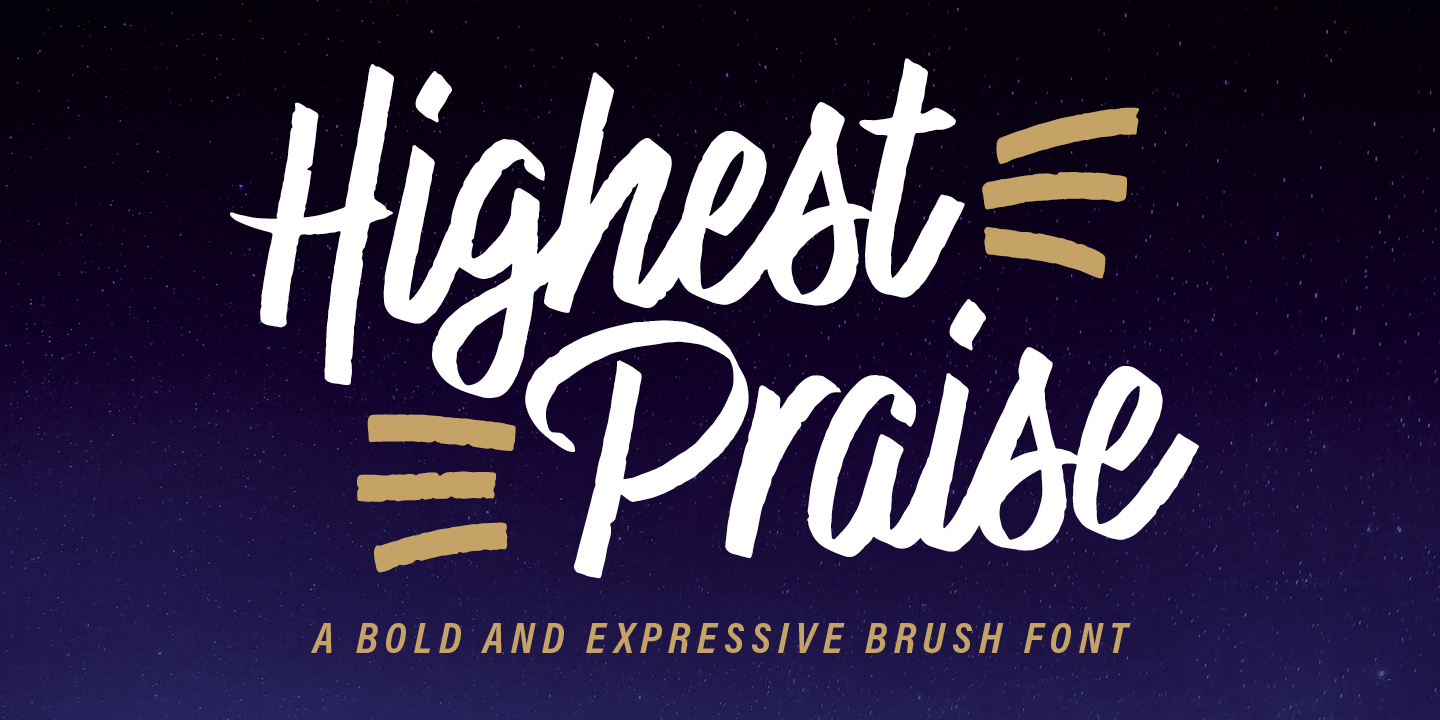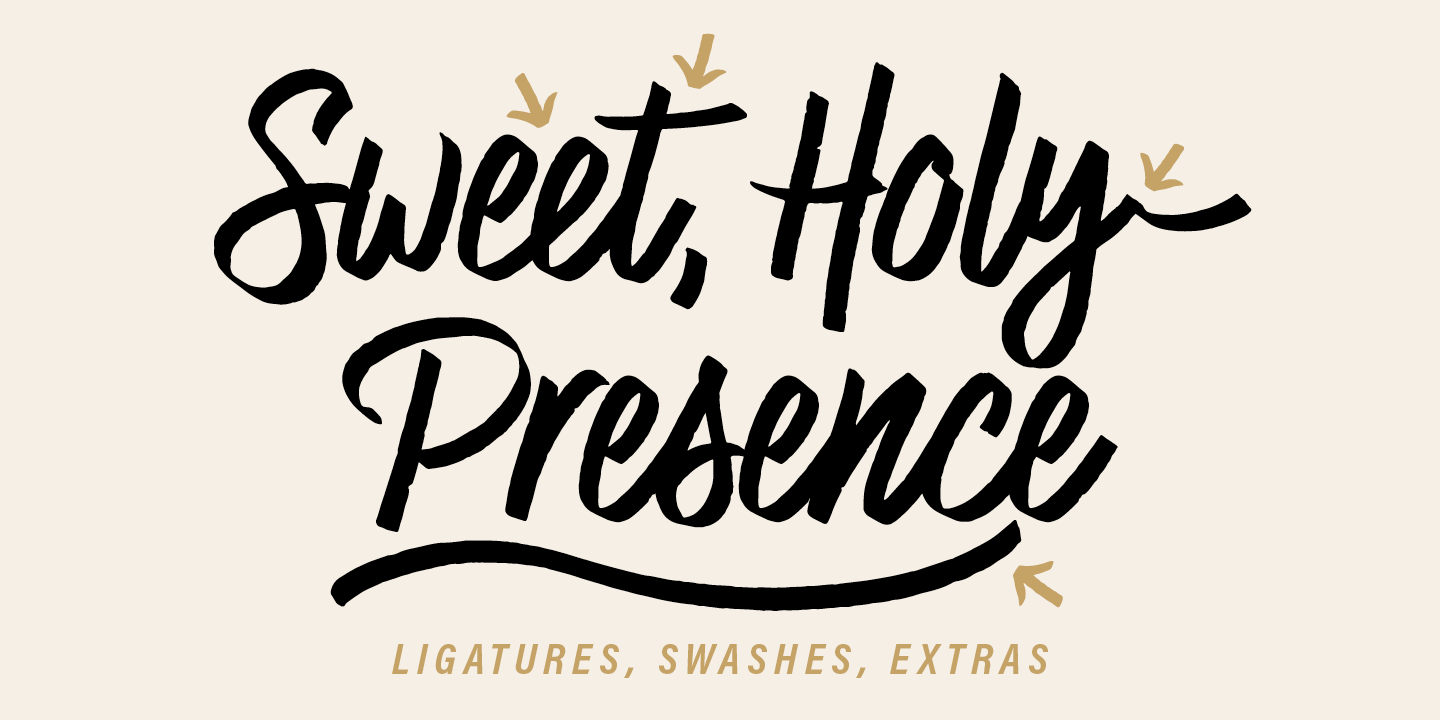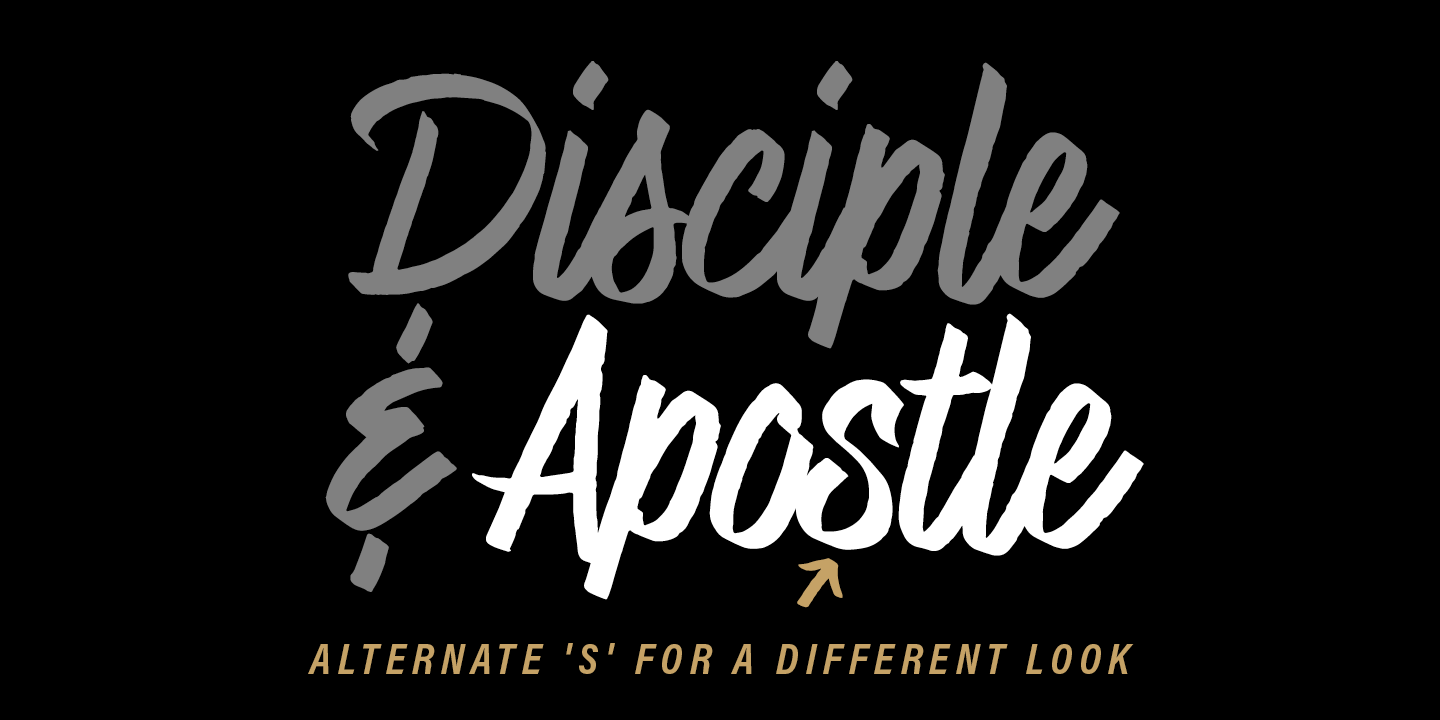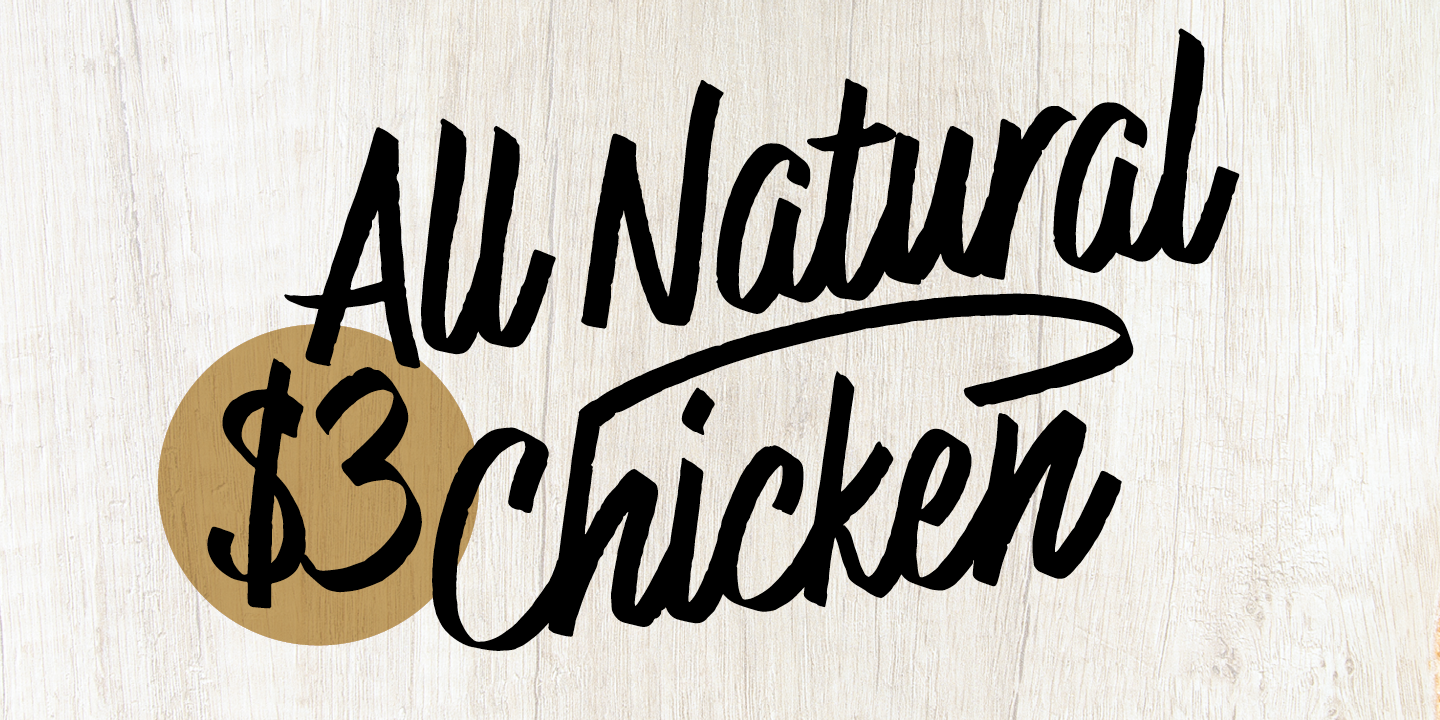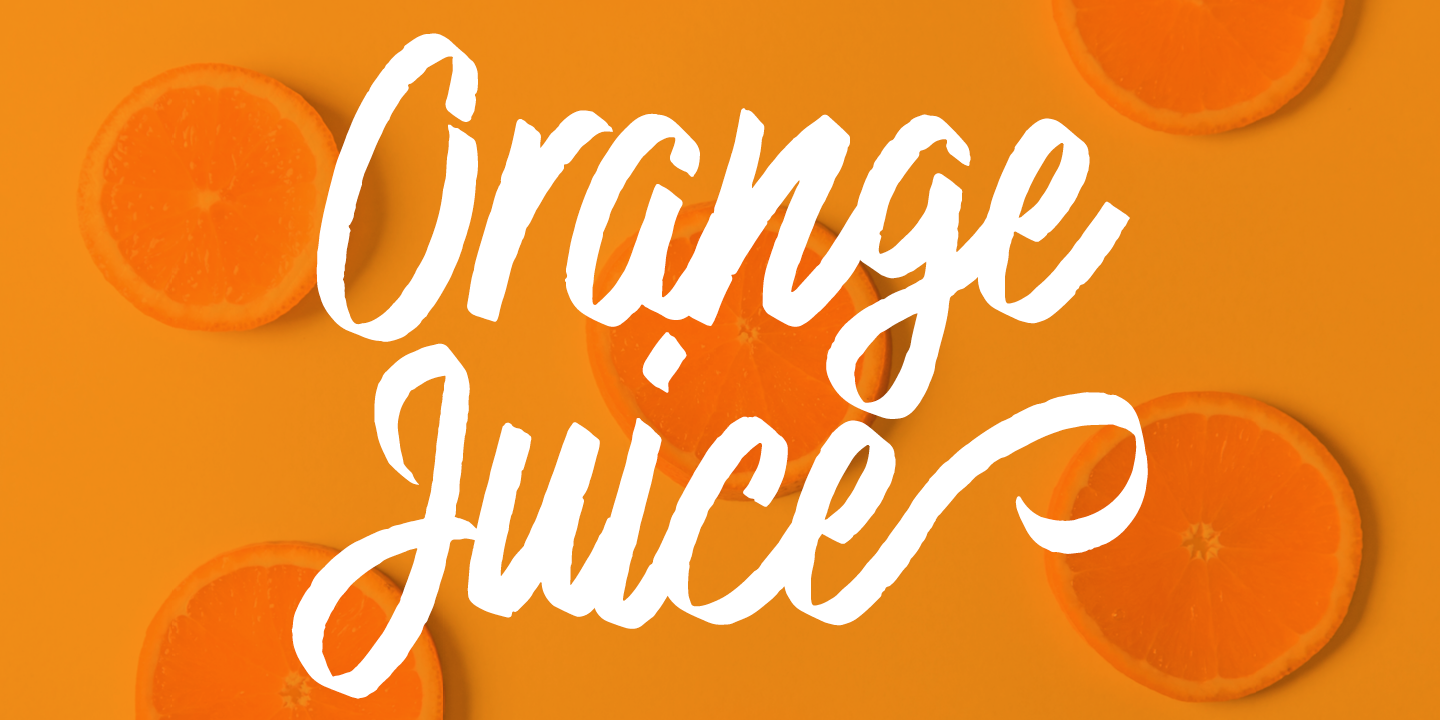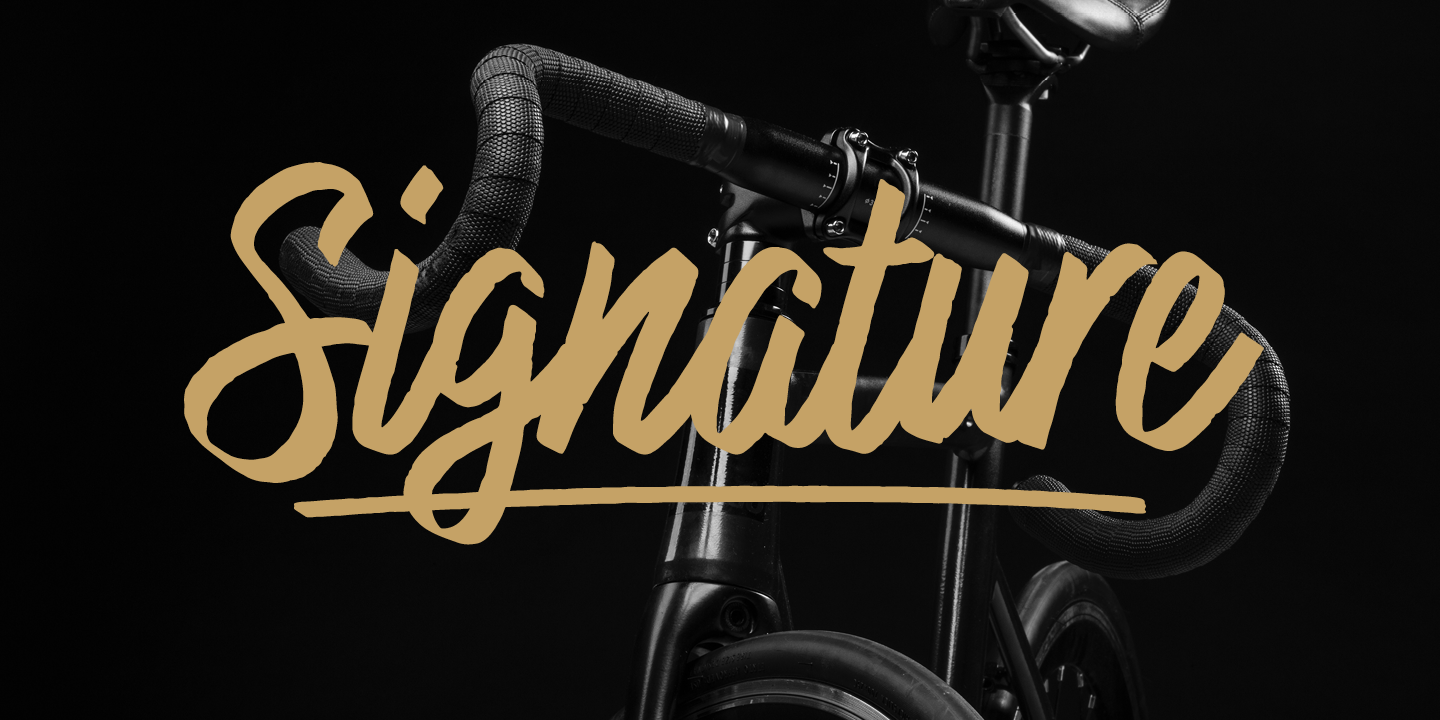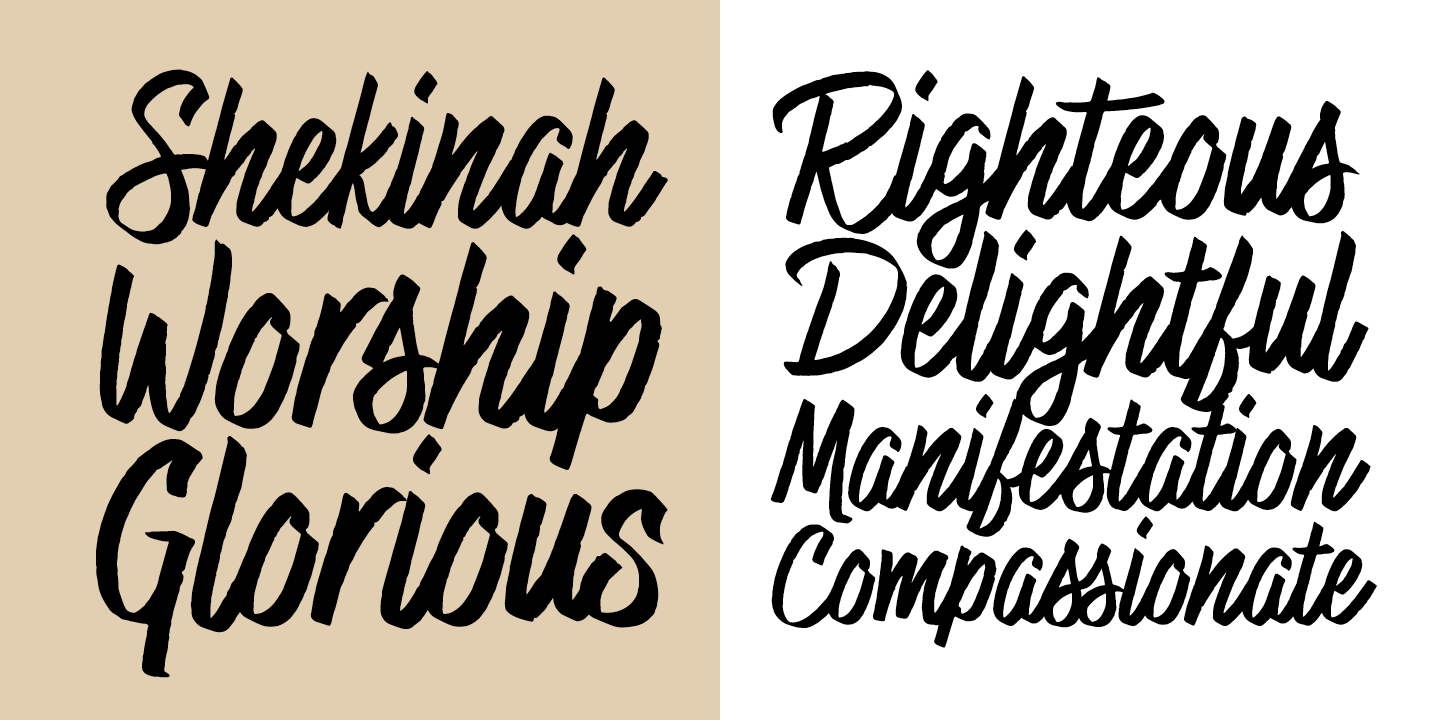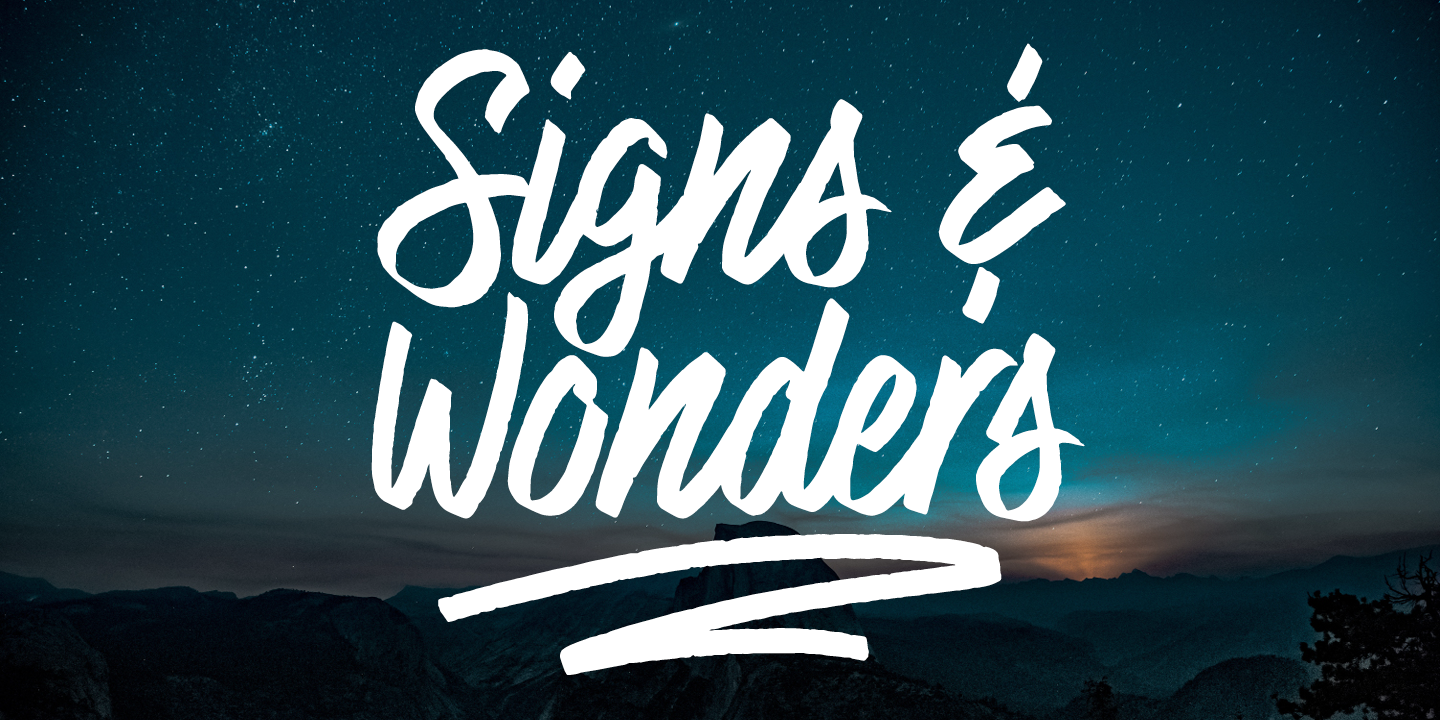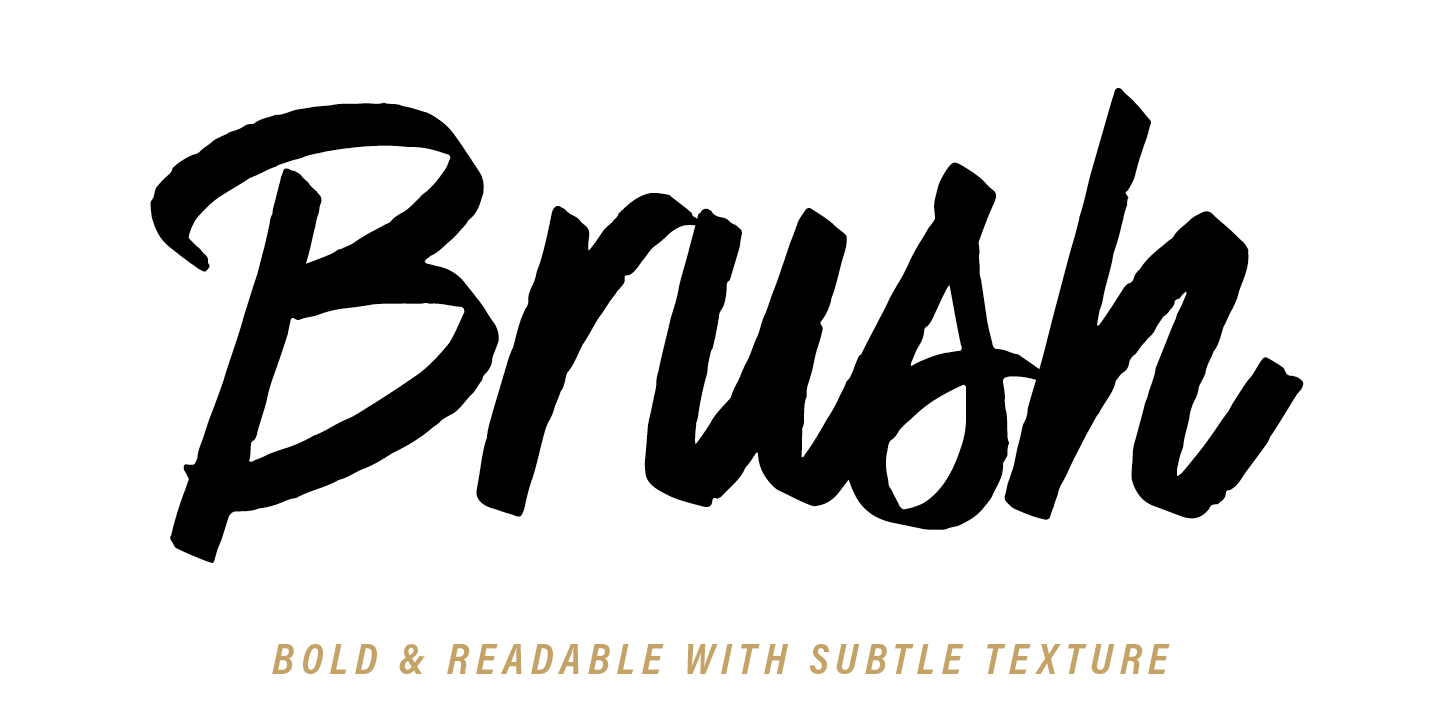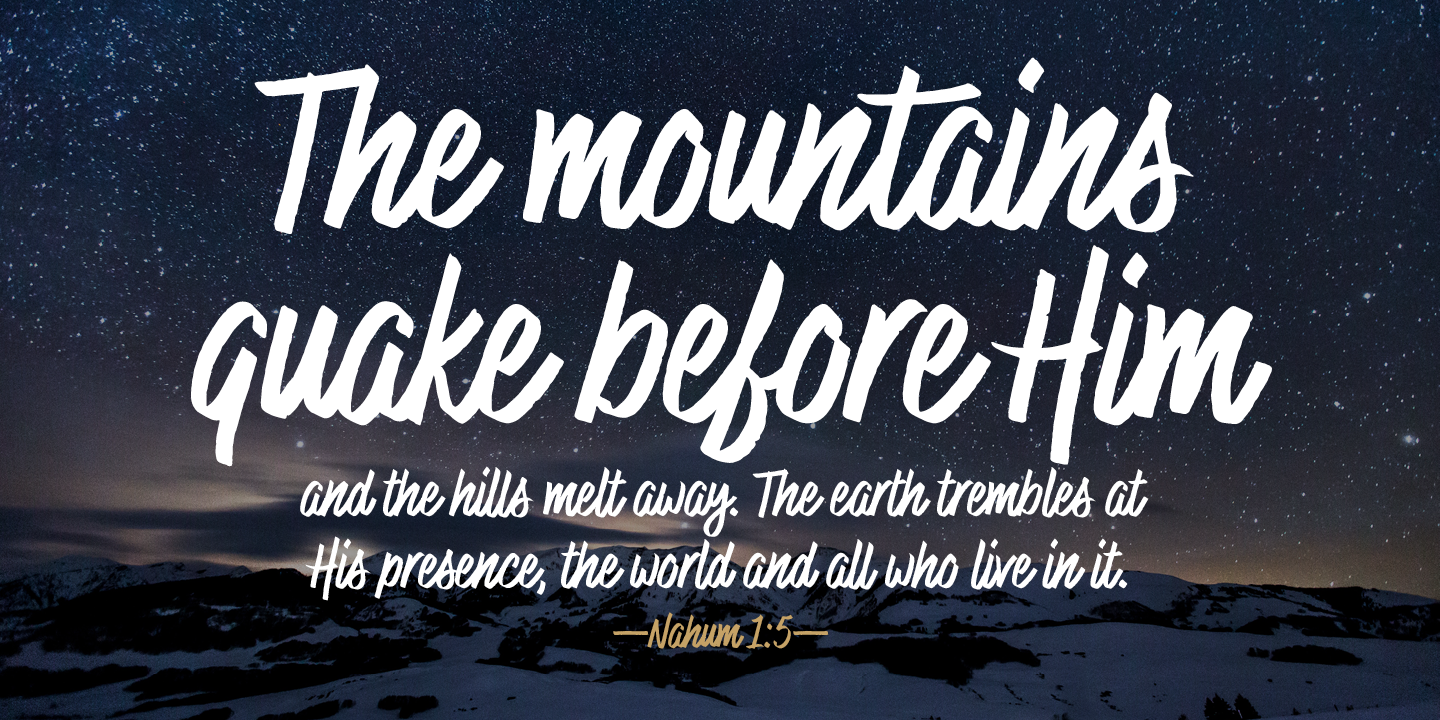
Highest Praise is a bold and expressive brush script font. It has condensed proportions and subtle texture on the edges, giving it a blend of modern and vintage qualities. While stylish and distinct, the typeface is very readable, making it great for branding, packaging, quotes, invitations, headlines, etc.
Features include swash characters and alternate āsā to give a different look, double-letter ligatures for certain combinations, and extras (swashes, lines) built into the font to add decoration.